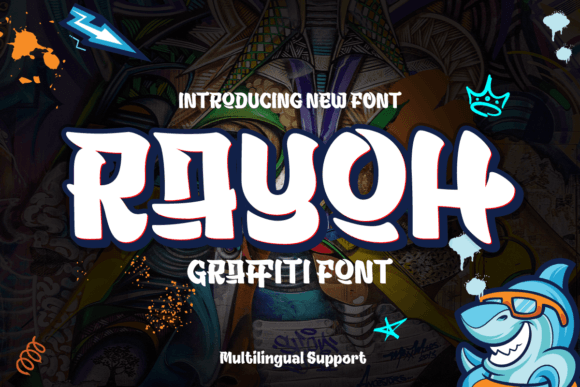
Introducing Rayoh Font - A Graffiti Symphony for Creative Expression.
Prepare to be mesmerized by Rayoh Font, a striking and liberating graffiti display font that will transform your designs into captivating works of art. Its bold and vibrant characters, reminiscent of urban street art, inject a raw and authentic energy into any project. Available in two captivating variations - Regular and Shadow - Rayoh is a versatile chameleon, effortlessly adapting to diverse design landscapes.
With Rayoh, you'll become a graffiti maestro, effortlessly crafting stunning YouTube banners that demand attention. This font is your secret weapon for creating thumbnails that captivate and entice, leaving viewers eager to dive into your content. Let Rayoh's urban flair elevate your videos, making them stand out in a sea of mediocrity.
But Rayoh's magic extends far beyond YouTube banners. Its versatility knows no bounds, making it an ideal choice for a wide range of projects. Unleash your creativity and adorn posters, flyers, album covers, social media posts, and branding materials with Rayoh's distinctive style. Its bold strokes and playful nature will add a touch of individuality and charm to any design.
Rayoh is not just a font; it's an experience. It empowers you to express your unique voice, to break free from the ordinary and embrace the extraordinary. With Rayoh, you'll command attention, leaving an unforgettable impression on your audience.
Don't settle for ordinary fonts that blend into the background. Choose Rayoh and ignite your creativity, leaving a trail of artistic brilliance wherever you go.